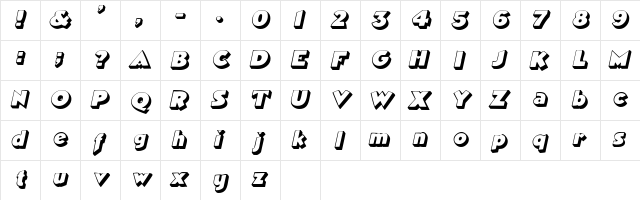
TricorneOutlineSSK BoldItalic Font Preview
Design Context for TricorneOutlineSSK Typeface
TricorneOutlineSSK brings ornamental detail and strong personality to headlines and identities, where visual impact matters more than quiet functionality. Its italic angle brings a sense of urgency and motion to the letterforms. The heavy weight commands attention and anchors typographic hierarchies.
Font Pairing: Pair with a clean neutral sans-serif for body copy to let TricorneOutlineSSK's character lead without overwhelming the composition.
Pro Tip: Treat TricorneOutlineSSK as the centrepiece of your typographic hierarchy. One strong heading set in a decorative face can carry an entire layout.